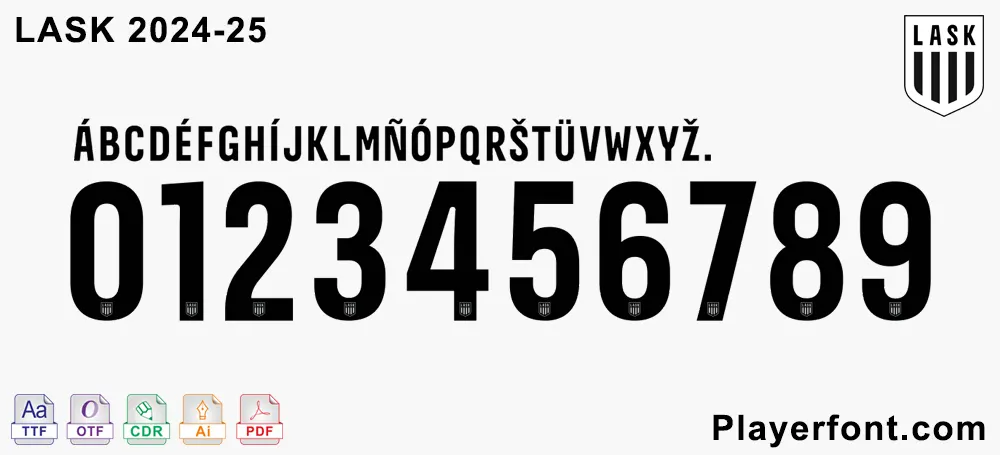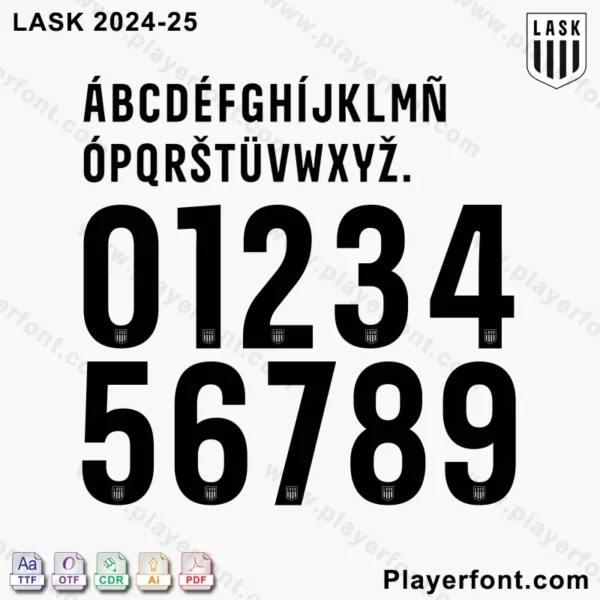
Officially-Inspired LASK 2024-2025 Font Download
Are you a dedicated LASK fan or a designer looking to capture the spirit of the Austrian Bundesliga on your projects? Our LASK 2024-25 Font Download provides you with the exact typographic style seen on the official LASK kits for the upcoming season. This isn’t just a font; it’s a piece of LASK’s identity, ready for your creative endeavors.
✅ Official Style – Matches LASK 2024-2025 branding.